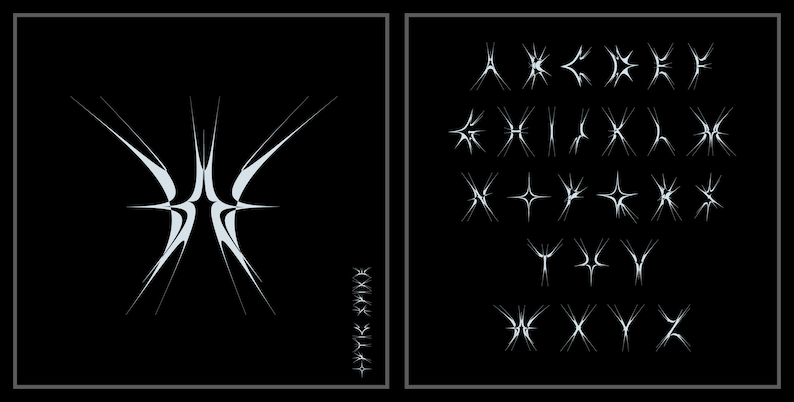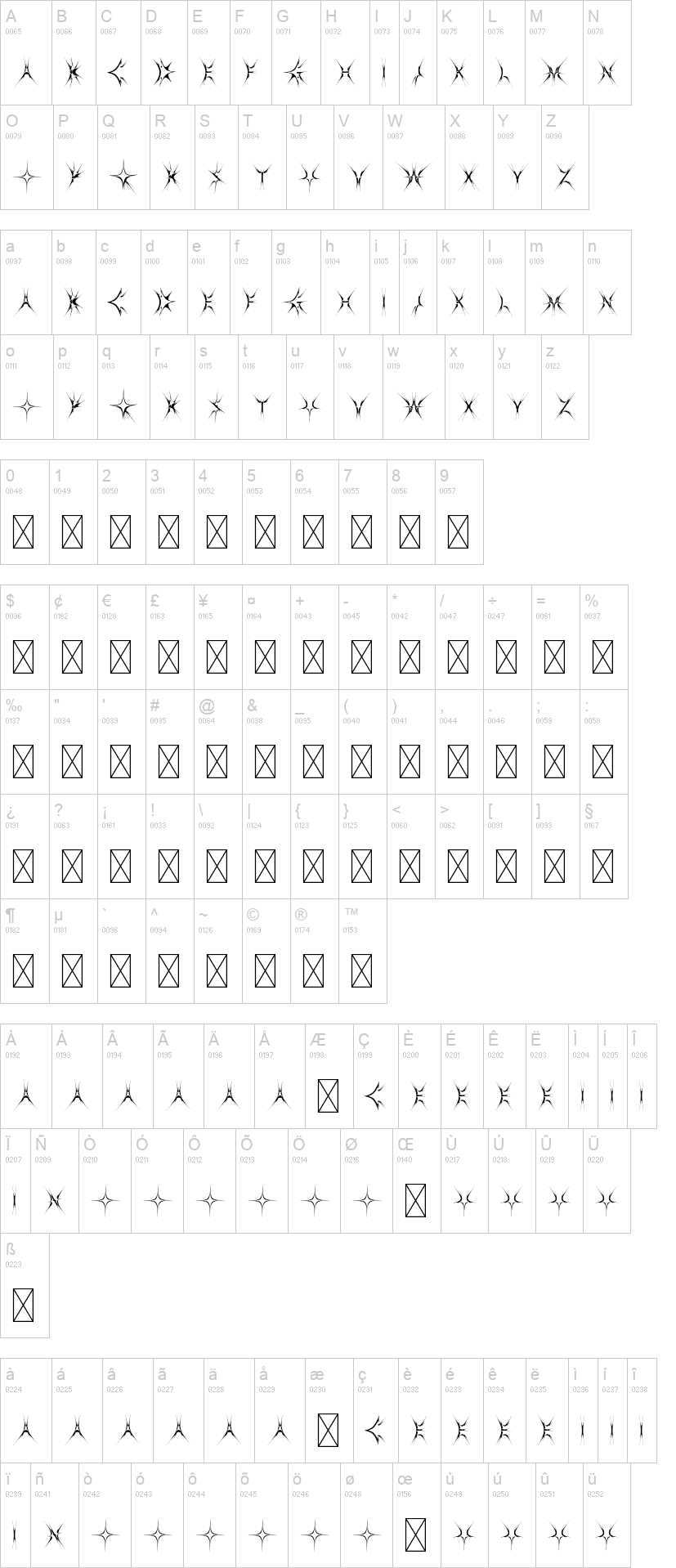
Note of the authorOptic Spike. A new sci-fi Psych-Future font.
Create cool, trendy and modern designs with this futuristic psychedelic font. Great for video game, fantasy and sci-fi key art and print media/magazine cover design.